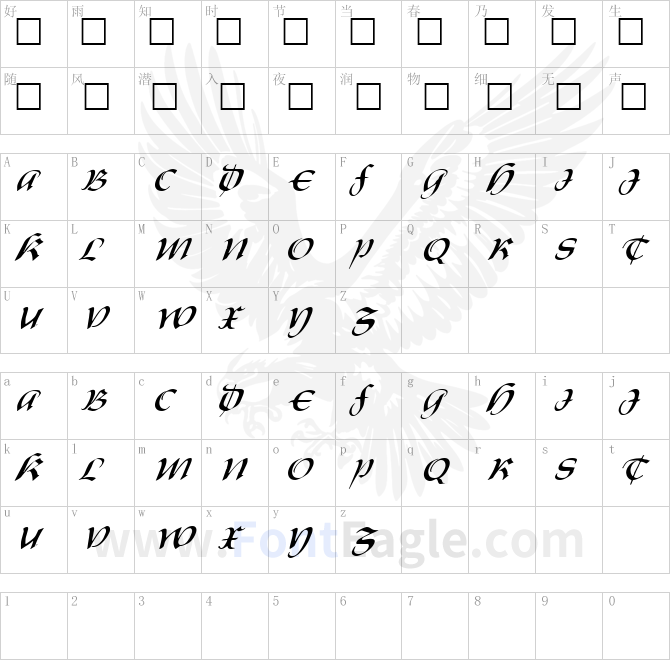
- Font name:FZ SCRIPT 19 ITALIC
FZ-SCRIPT-19-ITALIC is a great font, widely used in graphic design, single-page menu design, poster design and other fields, and is deeply loved by designers.FZ-SCRIPT-19-ITALIC download.